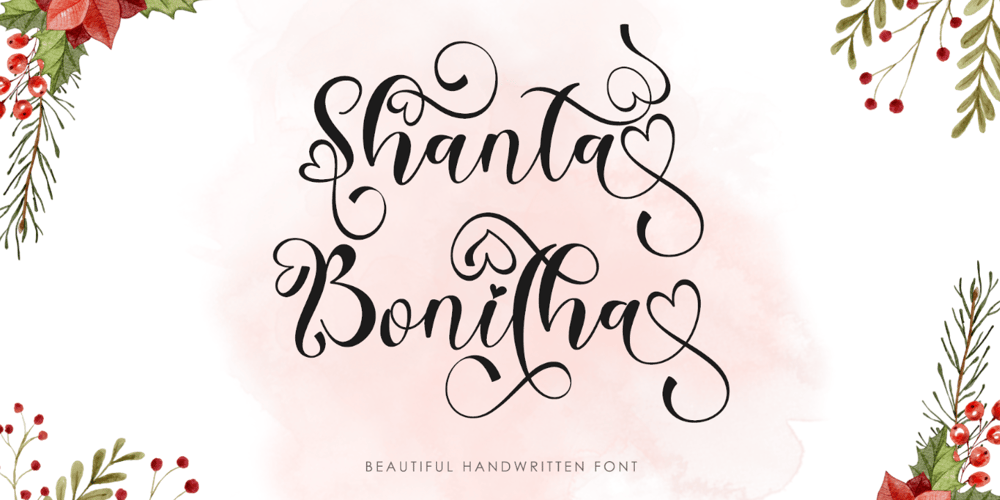
Shanta Bonitha
Shanta Bonitha font
Shanta Bonitha Font Family was designed by Isroni Yoga Prasetya and published by Yoga Letter. Shanta Bonitha contains 1 styles and family package options. “Christmas Bonitha” is a beautiful and elegant handwritten font. It comes with capital letters, lowercase letters, numbers, punctuation, ligatures, and multilingual support. It is suitable for weddings, Christmas, fall, Halloween, invitations, posters, banners, branding, stickers, and more.